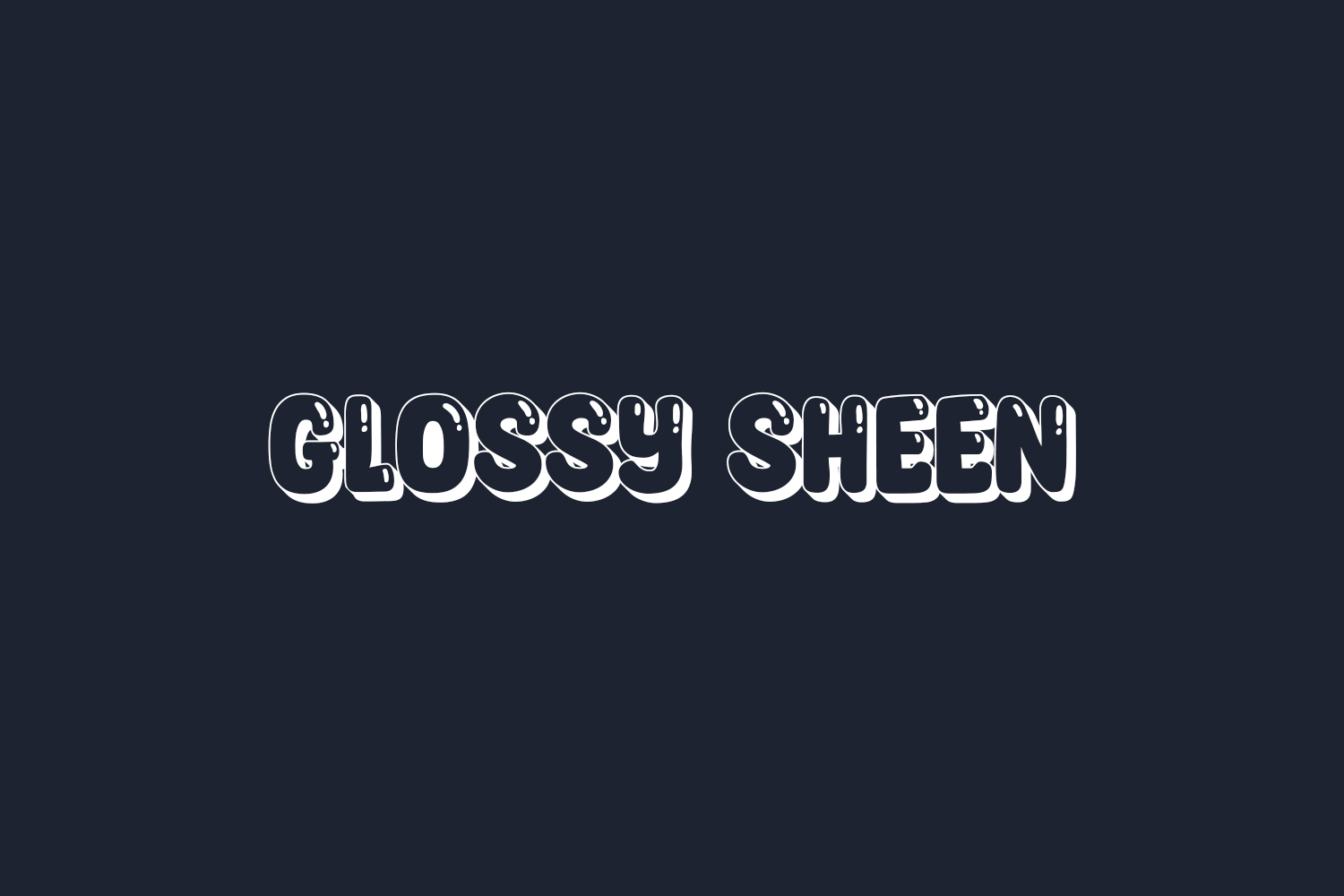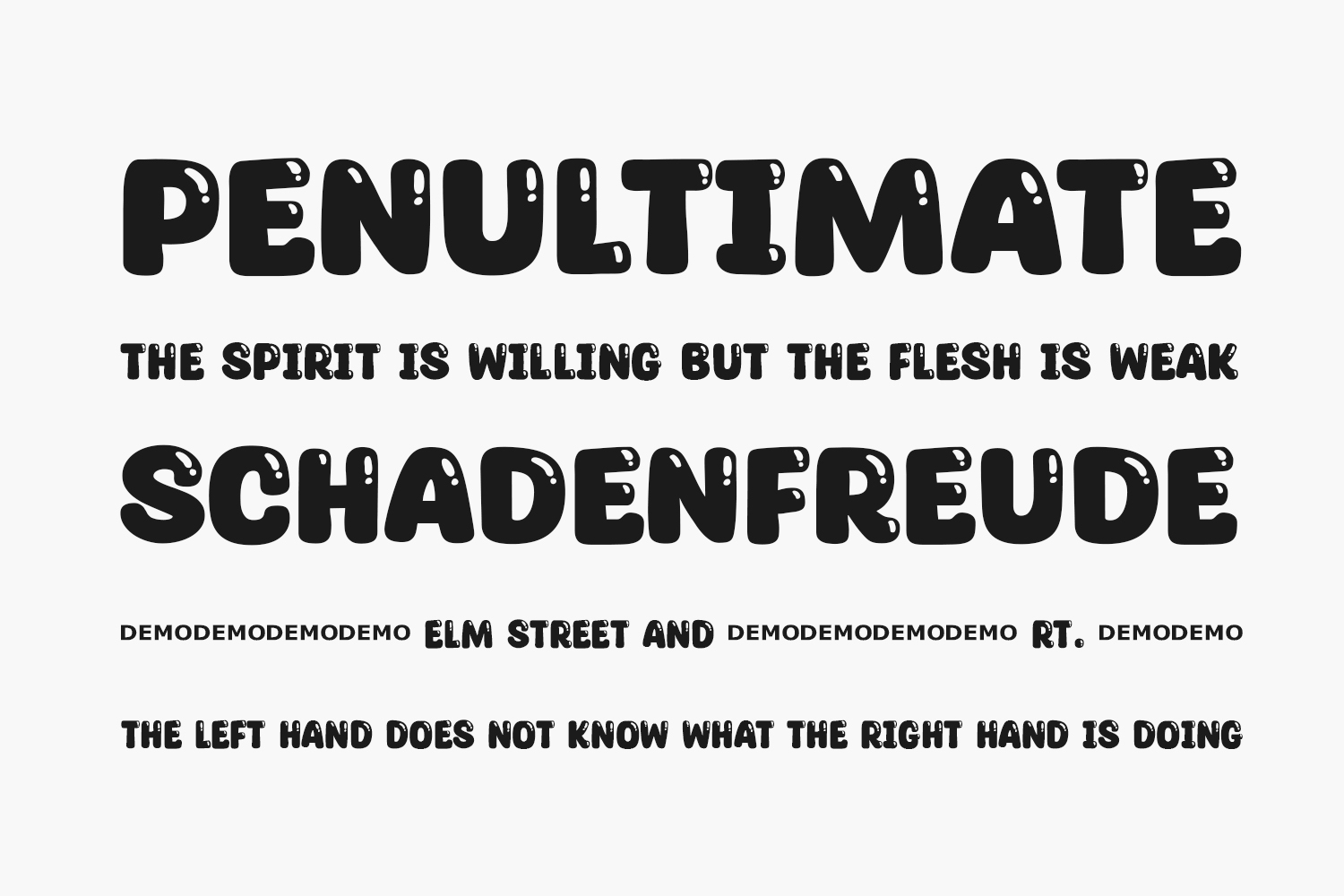
Glossy Sheen Free Font Family is a shiny and cool layered font. It is perfect for t-shirt, packaging, branding, posters, greeting cards, quotes and so much more.